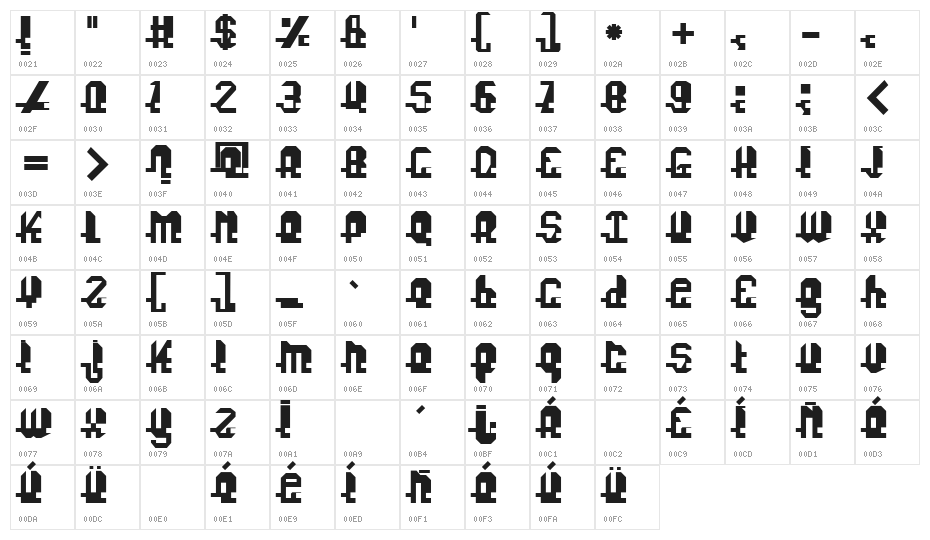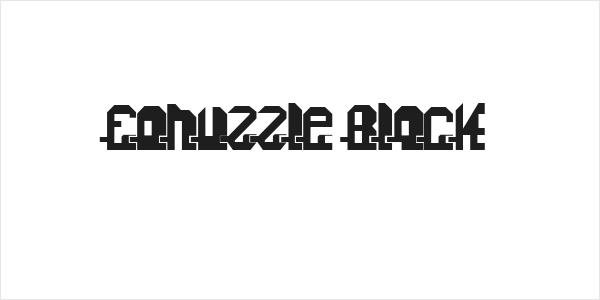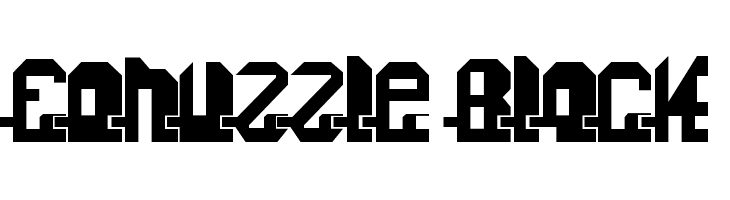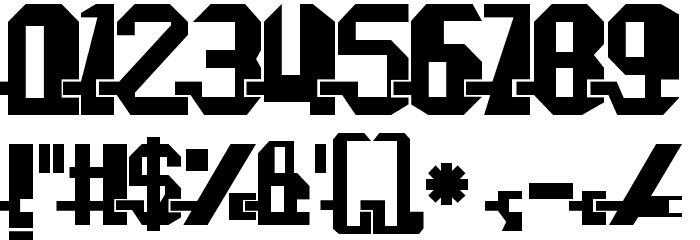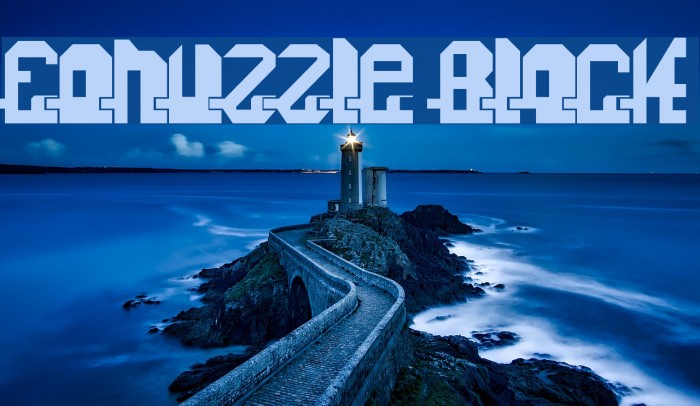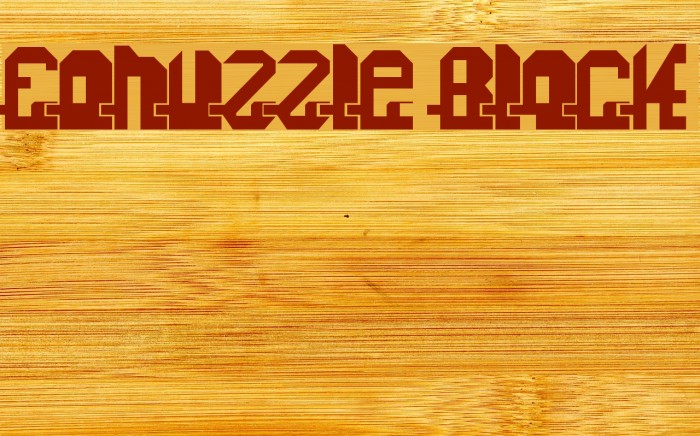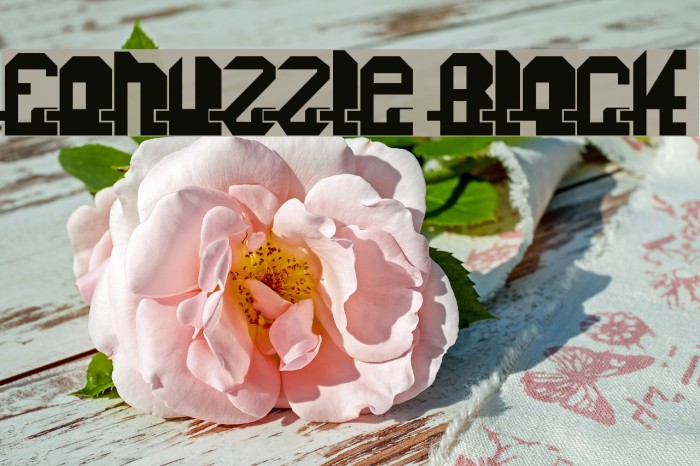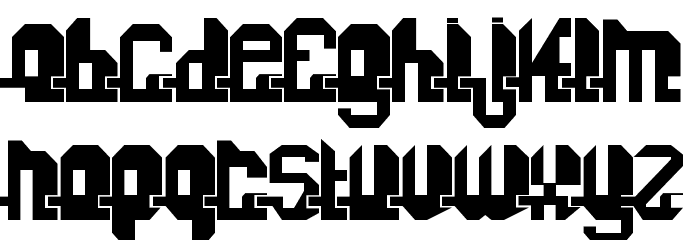
Fonuzzle Black Font
Fonuzzle Black Description
This font features a bold, geometric design with a distinct blocky appearance. Each character is crafted with sharp angles and thick strokes, creating a strong visual impact. The uppercase and lowercase letters maintain a consistent style, while the numerals and special characters complement the overall aesthetic. The design is reminiscent of digital or futuristic themes, making it suitable for modern and tech-oriented projects. Its unique style ensures high readability while maintaining a striking presence.